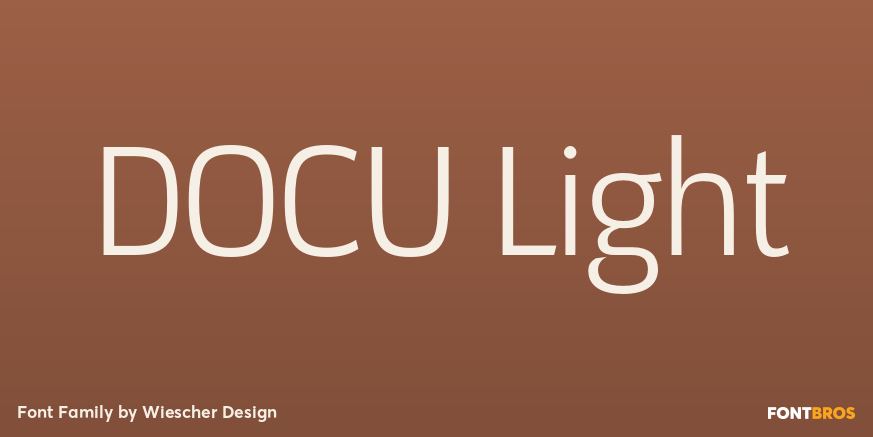
About DOCU Light
Docu is my font for everything office and document. It\’s narrow, yet open design is perfectly suited to put a lot of text into small areas. The fonts in the DOCU family have fantastic legibility. The fonts have over 700 glyps, a full set of smallcaps,…